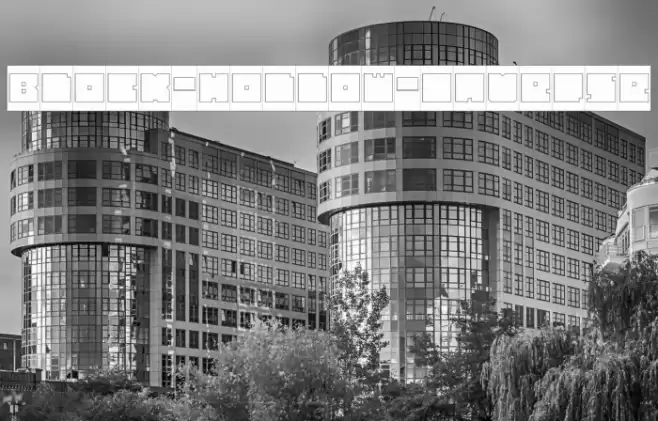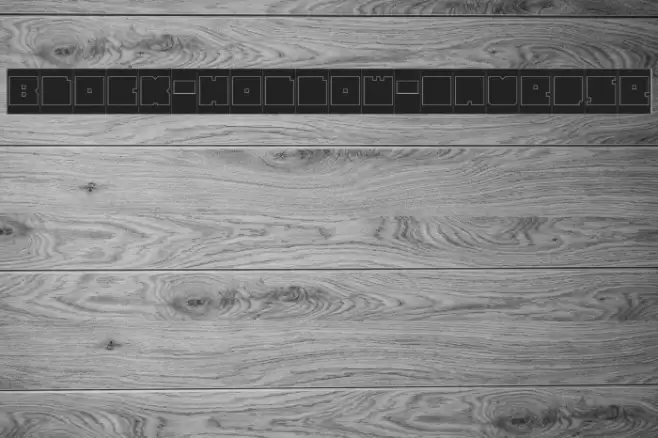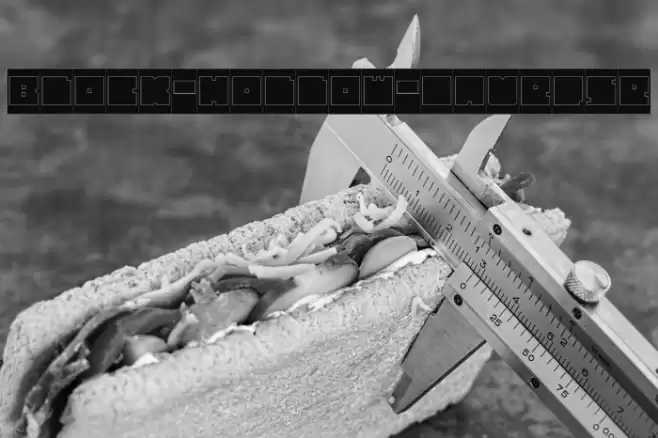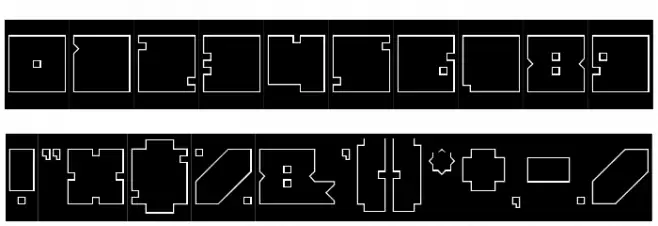
BLOCK-Hollow-Inverse Font
BLOCK-Hollow-Inverse Description
This font features a bold, blocky design with hollow interiors, creating a striking inverse effect. The characters are uniformly structured with sharp, angular edges and a consistent thickness throughout. The hollow centers add a unique dimension, making the letters appear as if they are outlined. This style is highly geometric, with each character fitting neatly into a square grid, emphasizing its modular appearance. The font's distinct look is both modern and futuristic, suitable for projects that require a bold statement. The special characters maintain the same blocky, hollow design, ensuring visual consistency across all elements.
A bold, blocky font with hollow interiors and a geometric, modern style from Uncategorized fonts.
- Proposed Projects: Ideal for video game titles, tech-themed posters, futuristic branding, and digital artwork.